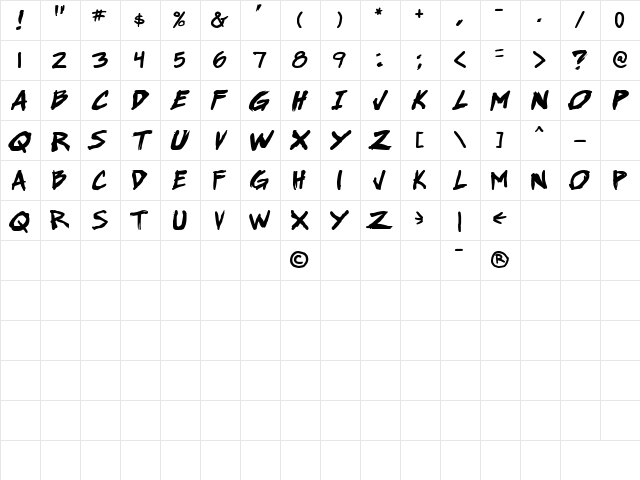
Super Webcomic Bros. Bold Italic
| Designer | Andeh Pinkard |
Design Context for Super Webcomic Bros. Typeface
Super Webcomic Bros. trades formality for fun, with bouncy, characterful letterforms that bring warmth and energy to any project. Its italic angle brings a sense of urgency and motion to the letterforms.
Well-suited to food and beverage brands with personality, educational materials, and fun-forward identities.
Font Pairing: Pairs well with a rounded or humanist sans for body copy, maintaining the friendly tone without relying on Super Webcomic Bros. to carry extended reading.
Pro Tip: Use Super Webcomic Bros. at larger display sizes where its expressive character can land. Pair with a clean, simple sans for body copy to maintain readability.